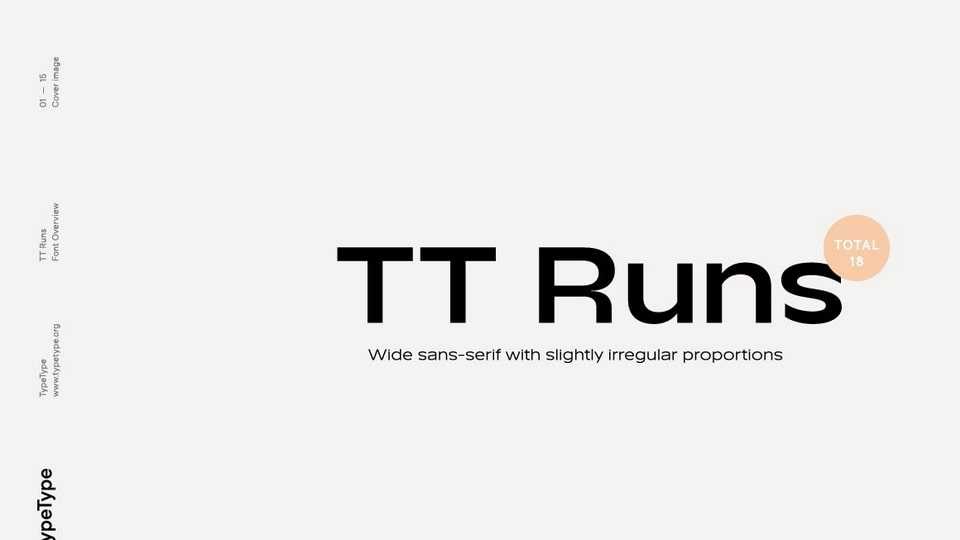
Download TT Runs font, a wide modern sans-serif, which will reflect the sporty style and look good on sportswear. TT Runs is very versatile: on the one hand, it is a regular sans-serif that can be used even in a large text array, and on the other hand, it is a bright display typeface with irregular proportions of characters that looks great even in large headings.